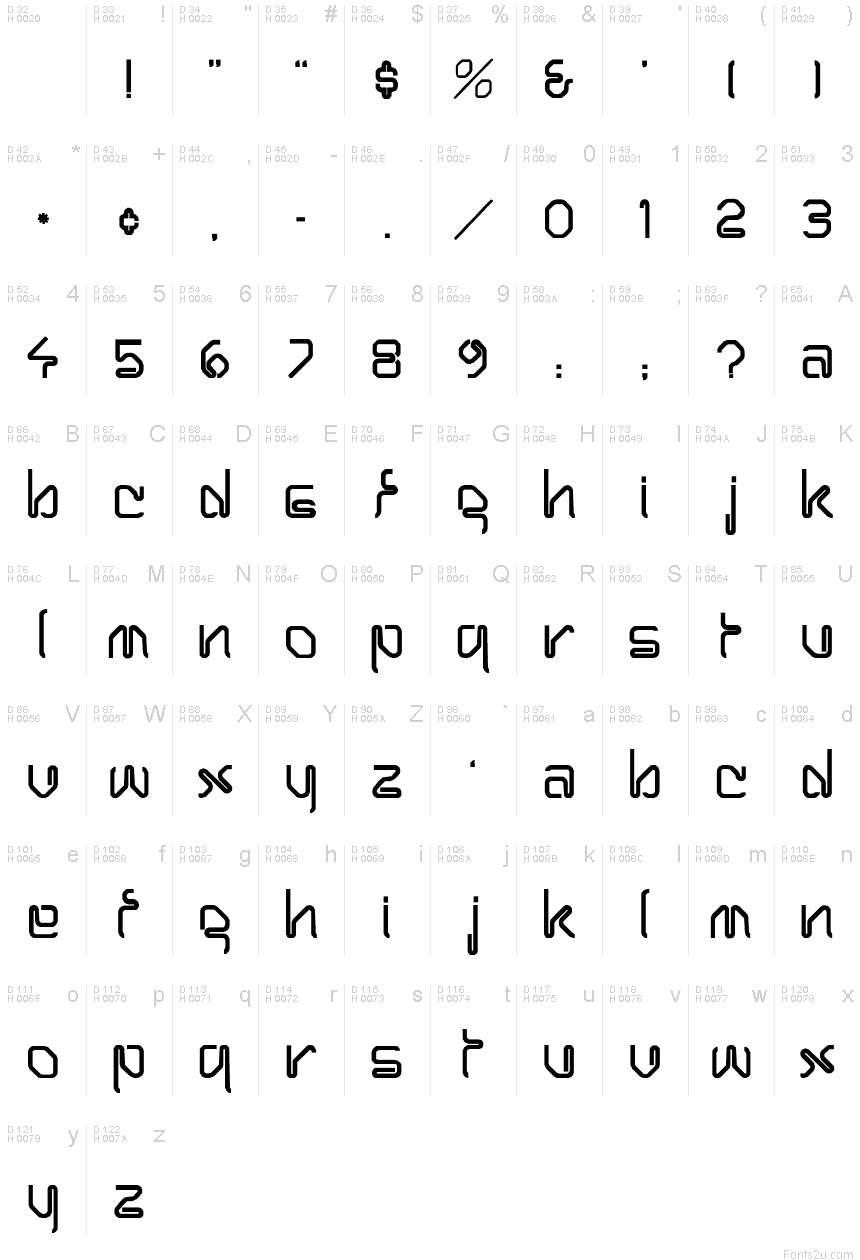
Hairpin-Normal
Hairpin font is a free futuristic display typeface with sleek, tubular strokes that twist into tight corners like bent wire. Its letters feel engineered rather than written—every curve snaps into crisp angles, creating a continuous, circuit-like flow that instantly reads as techy and forward-looking. The spacing is compact yet readable, so headlines feel dense and energetic without becoming cluttered.
Using Hairpin, you can push sci-fi posters, gaming logos, electronic music covers, tech event flyers, and experimental branding into a distinctly digital territory. This free font shines when set large, where its angular turns and looping joints can really show off; support it with a simple geometric sans for body copy to keep the focus on those futuristic contours.